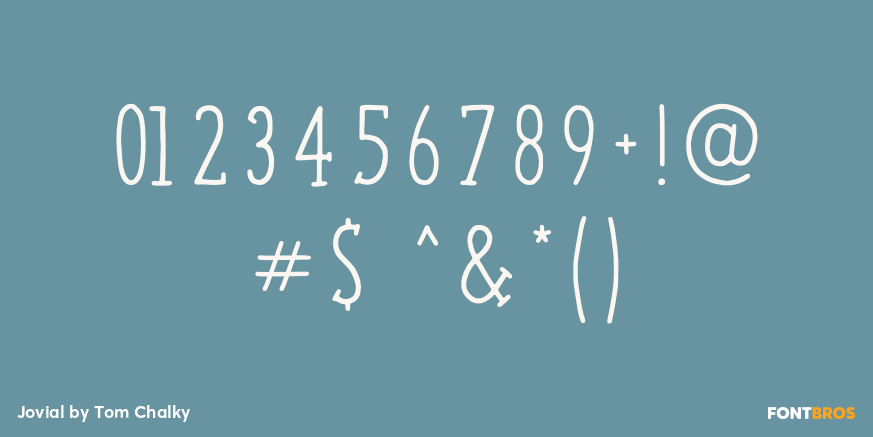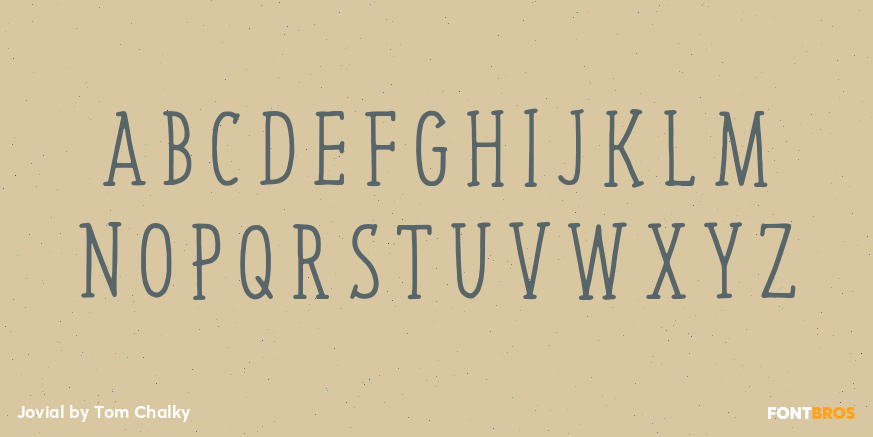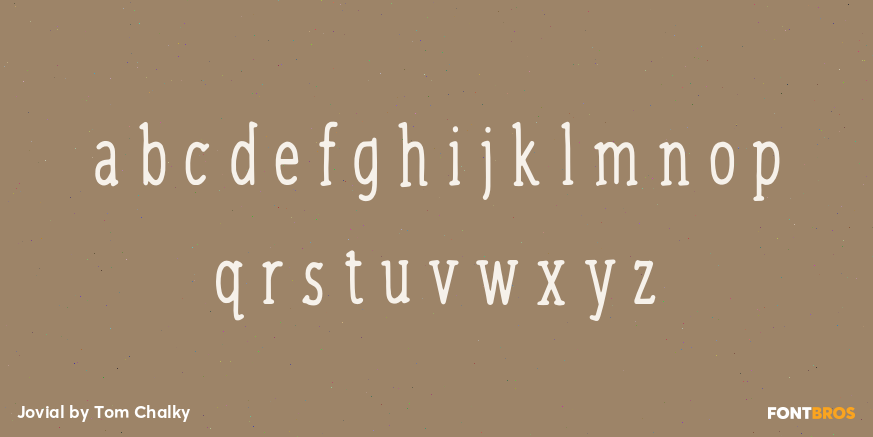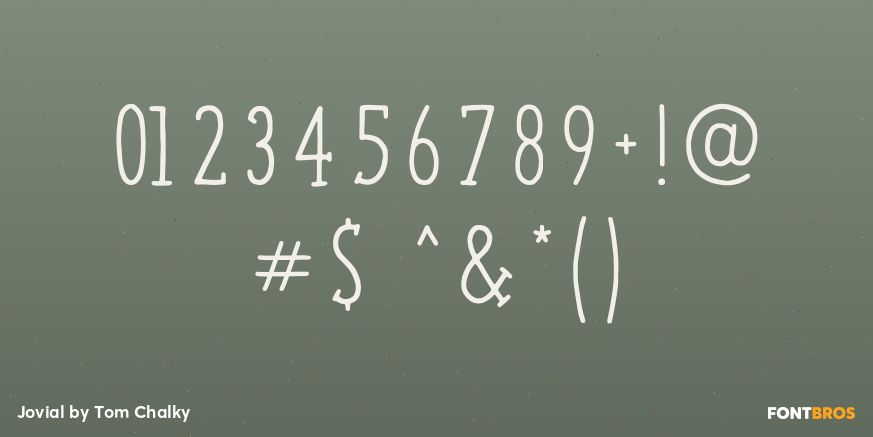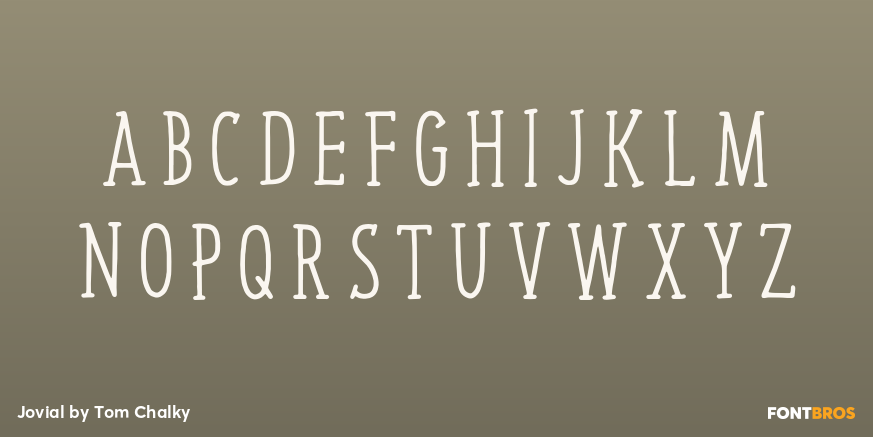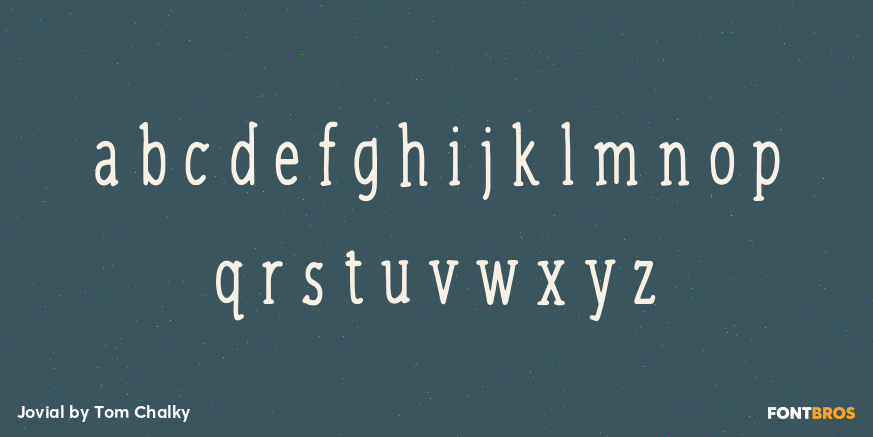
Jovial
Font Family by Tom Chalky
Introducing the handcrafted Jovial Font Family (6 fonts!). Jovial was designed to be friendly, fun, quirky and eye catching. Jovial is available in both Serif and Sans-Serif, each coming with three weights: Light, Regular and Bold.
Stylistic Alternatives make Jovial truly special. Do you want your letters to have a lower or a higher handle? How about an oblique handle? No problem. Jovial offers you up to four stylistics alternatives for the letters that we use the most.